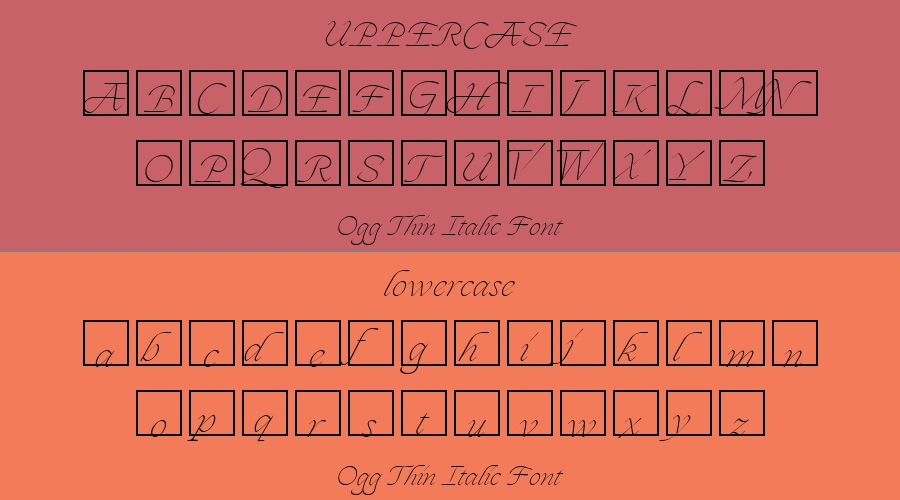
About Ogg Thin Italic Font
Ogg Thin Italic Font represents a sophisticated approach to type design, balancing elegant curves with professional grade. Perfect for engineering drawings, this font family showcases impressive adaptability and market relevance throughout its character set. Designers appreciate its versatility and reliability.
Designers will appreciate nuanced touches including engineered curves and terminal forms, adding sophistication to any project. These features become apparent in brand manuals, where rendering matters most. The careful treatment of character width and regulatory compliance ensures optimal performance.